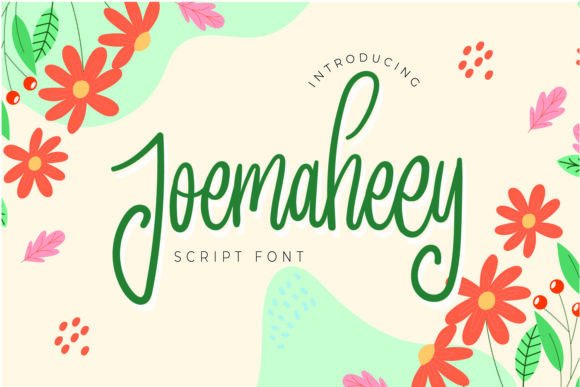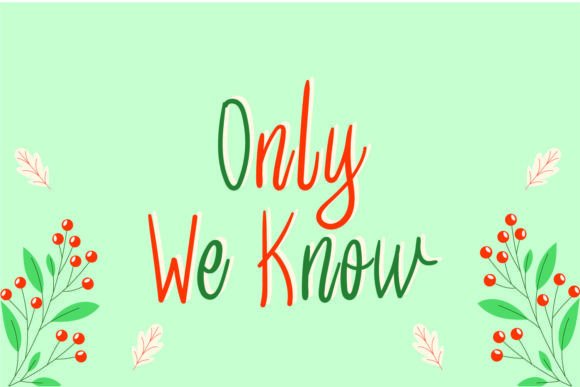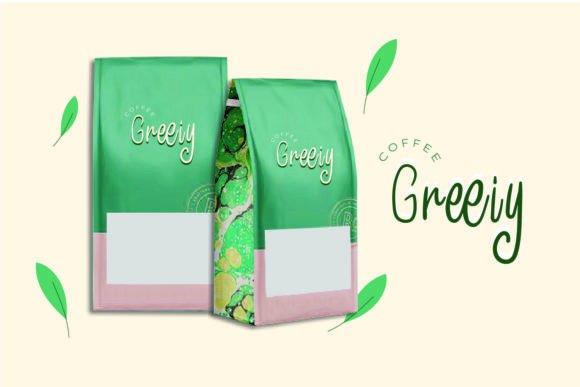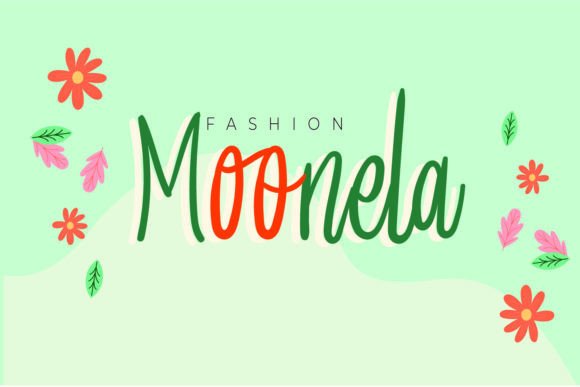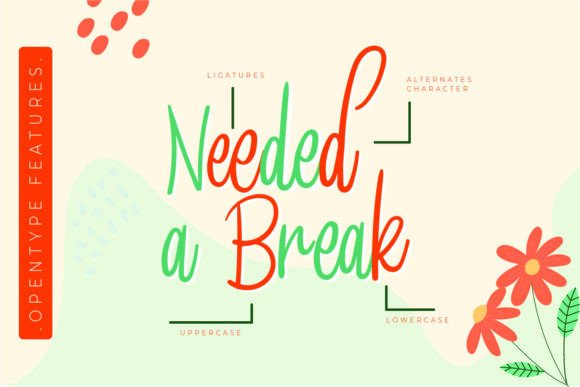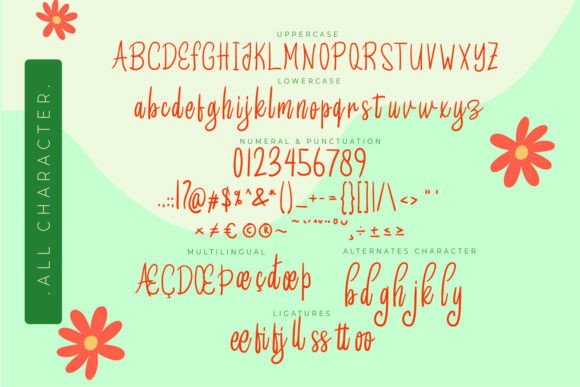
Joemaheey Font
Bring Joy to Your Designs with Joemaheey Font
Joemaheey Font is a playful and expressive script typeface inspired by modern calligraphy. Its cheerful strokes and dynamic curves make it perfect for adding personality and elegance to your creative projects. Whether you’re designing a heartfelt greeting card or a stylish brand identity, JoemaheeyFont adds charm and uniqueness.
Versatile for Multiple Design Needs
This lovely calligraphy-style script font is suitable for a wide range of applications. You can use JoemaheeyFont for:
• Greeting cards and invitations
• Quotes and typographic art
• Business cards and personal branding
• Social media graphics and content
• Posters and promotional materials
• Product packaging and labels
The fluid movement and clean lines make it ideal for both print and digital formats, ensuring your work looks professional and polished.
JoemaheeyFont is designed to be accessible and designer-friendly. Its playful style balances elegance with approachability, giving your designs a joyful tone while maintaining readability.
Whether you’re crafting handmade invitations or polished marketing content, this font adapts beautifully. Pair it with clean sans-serifs for contrast or let it shine on its own as a headline font.